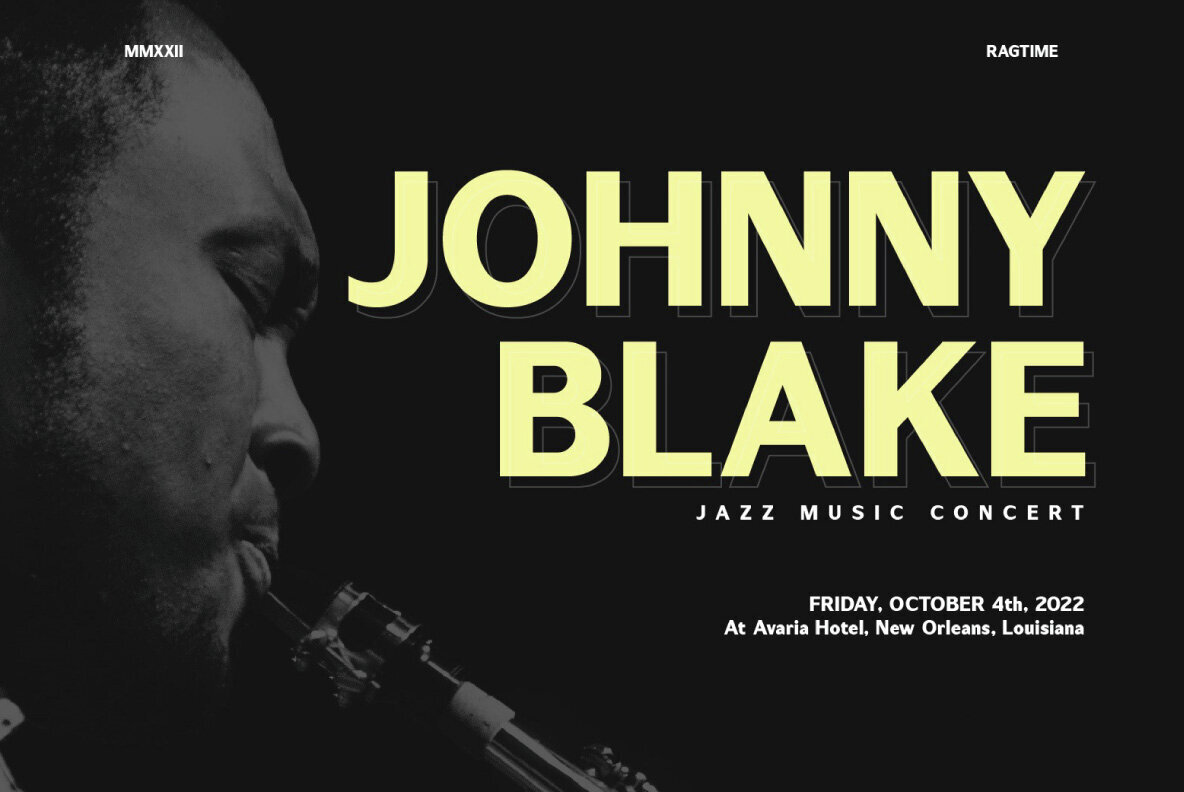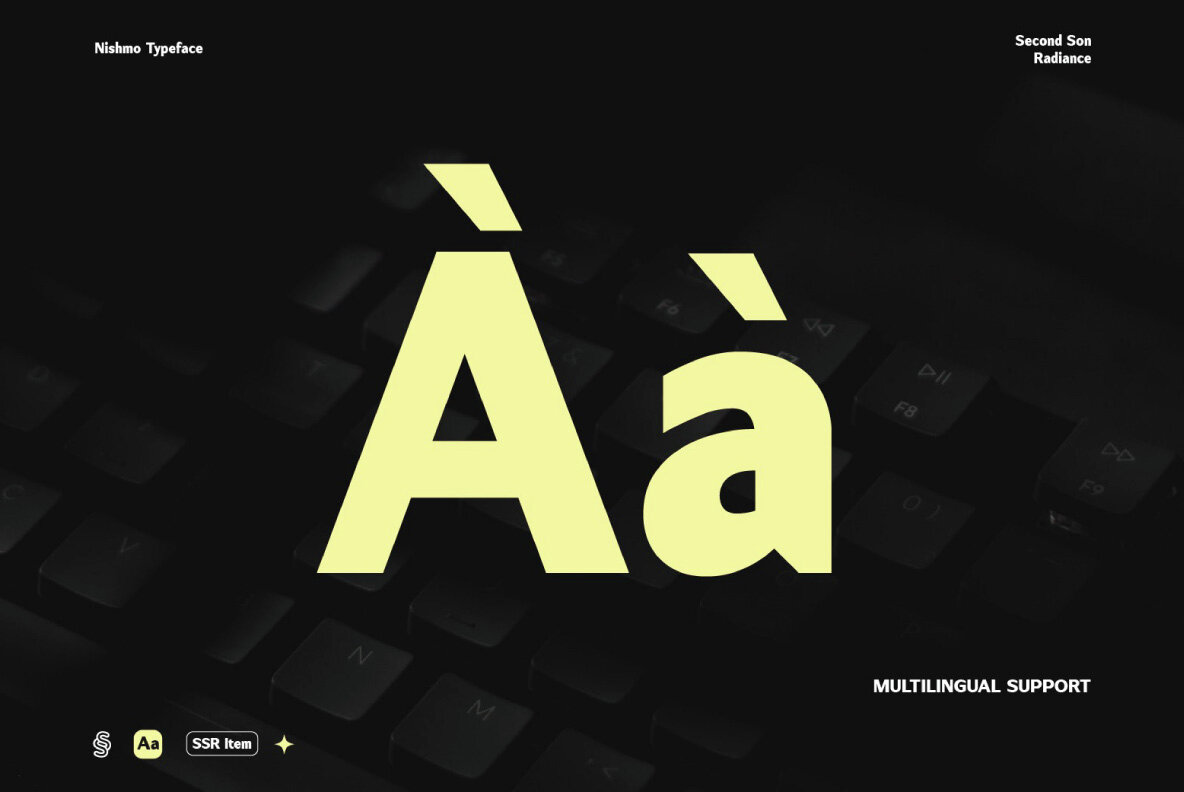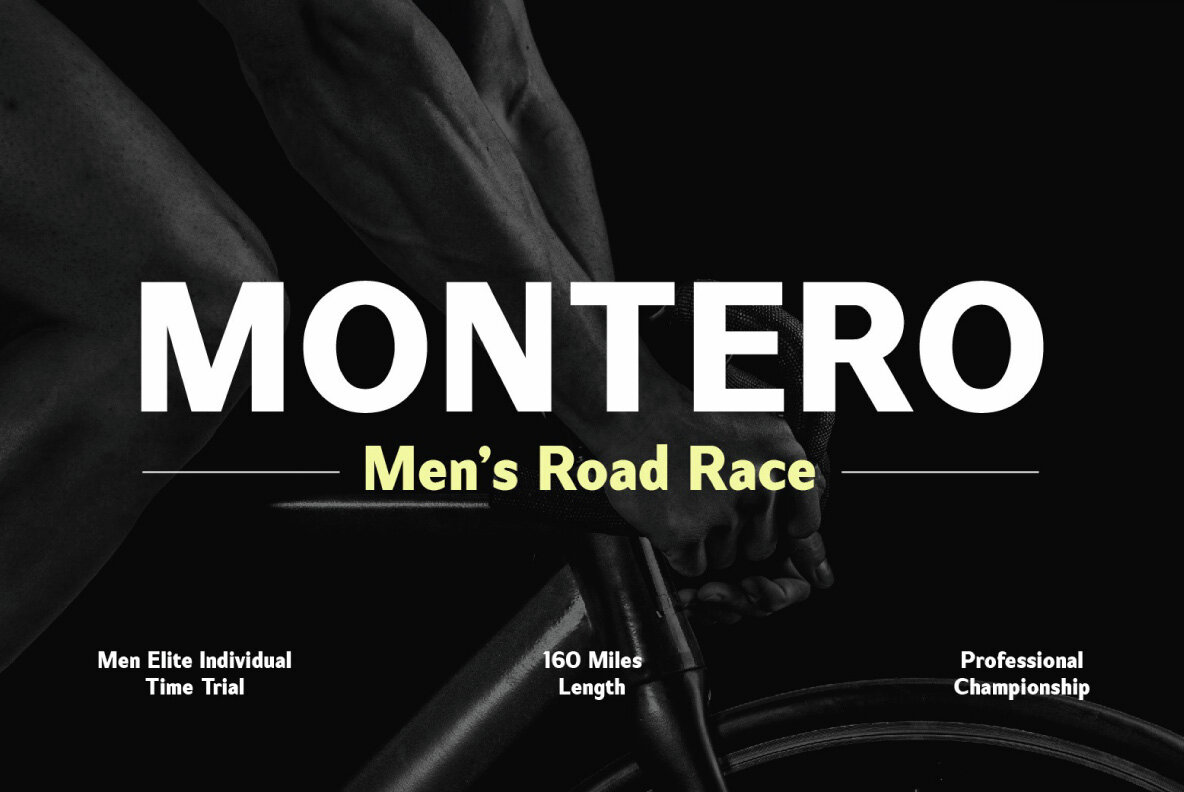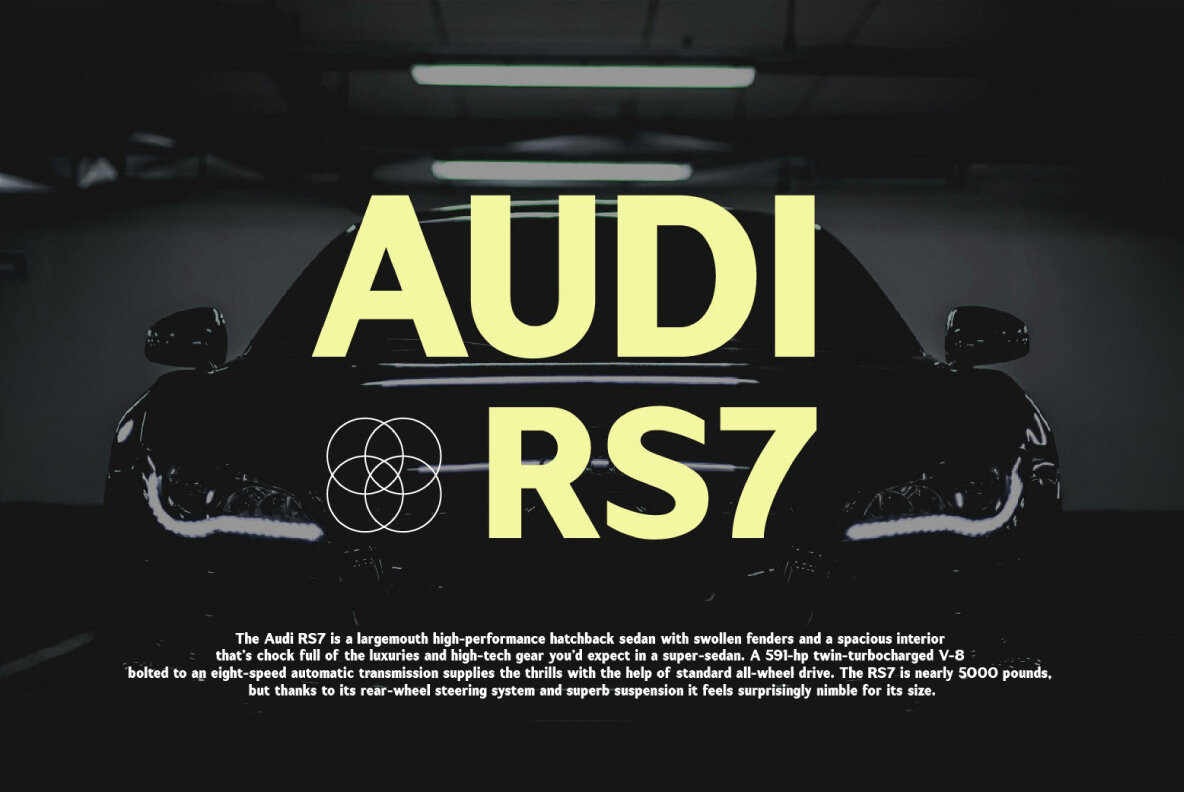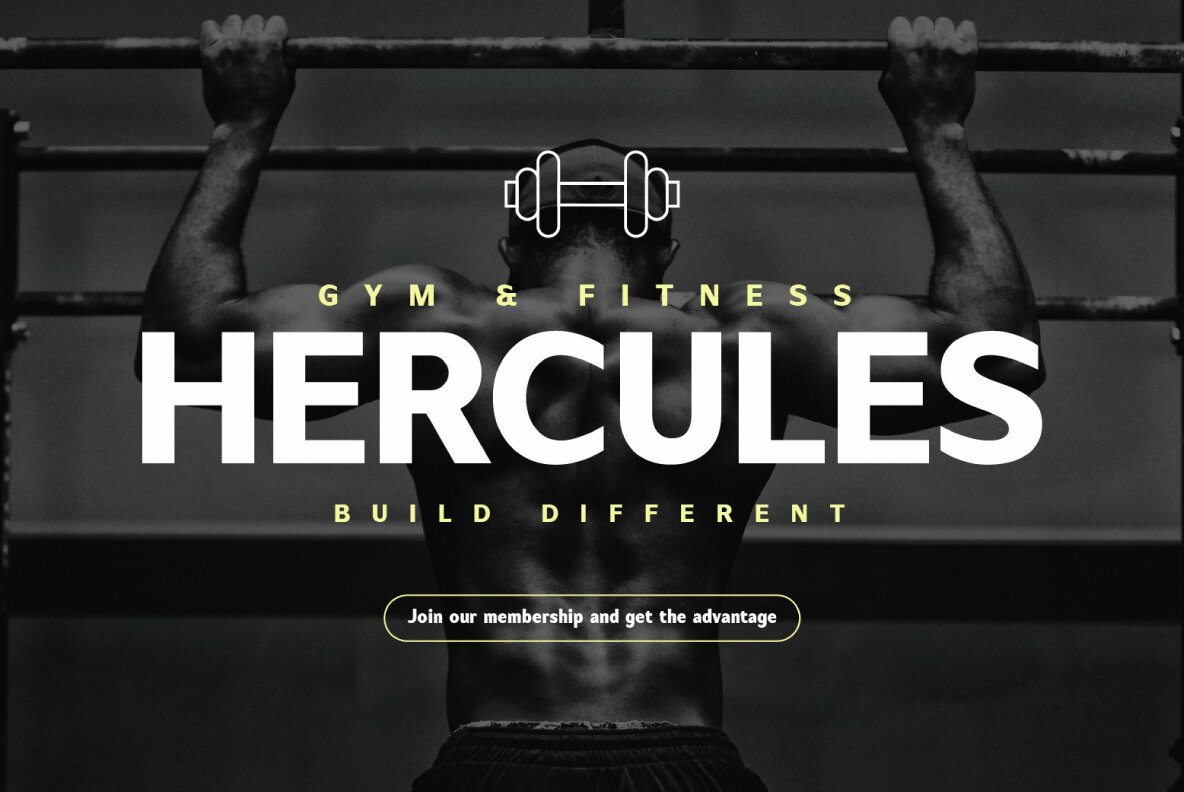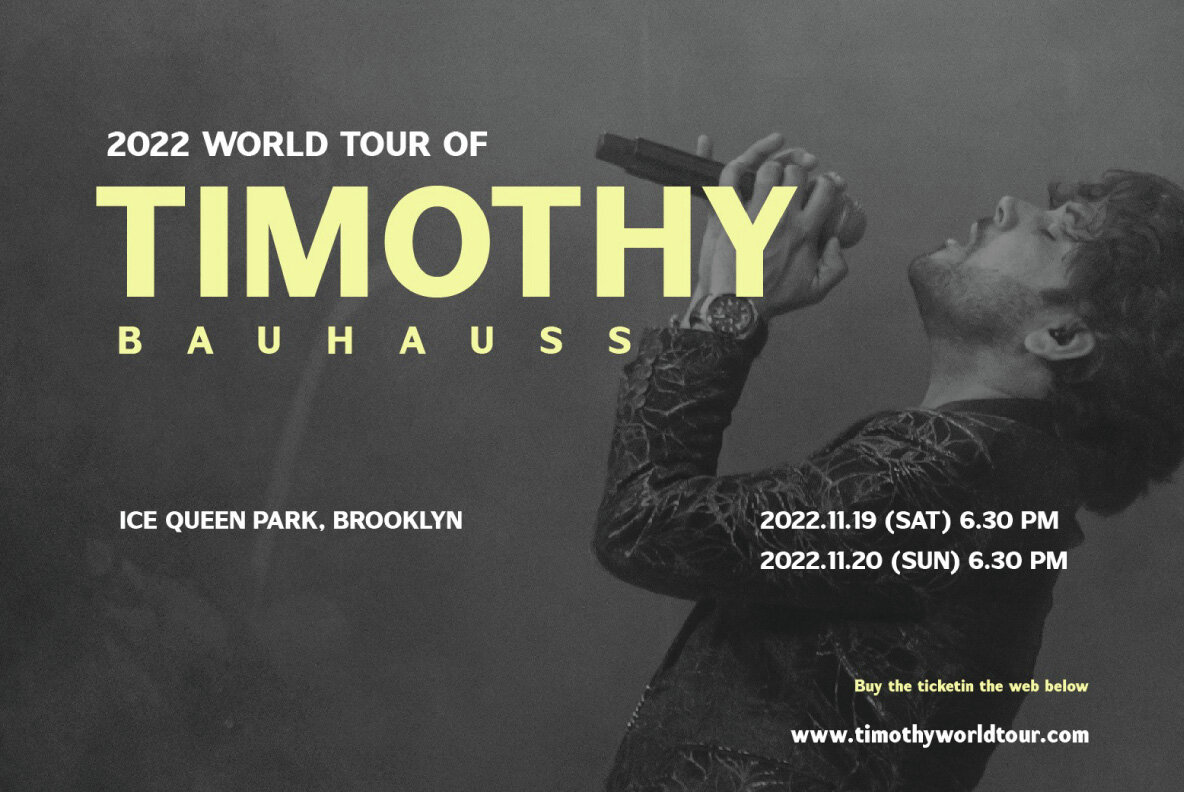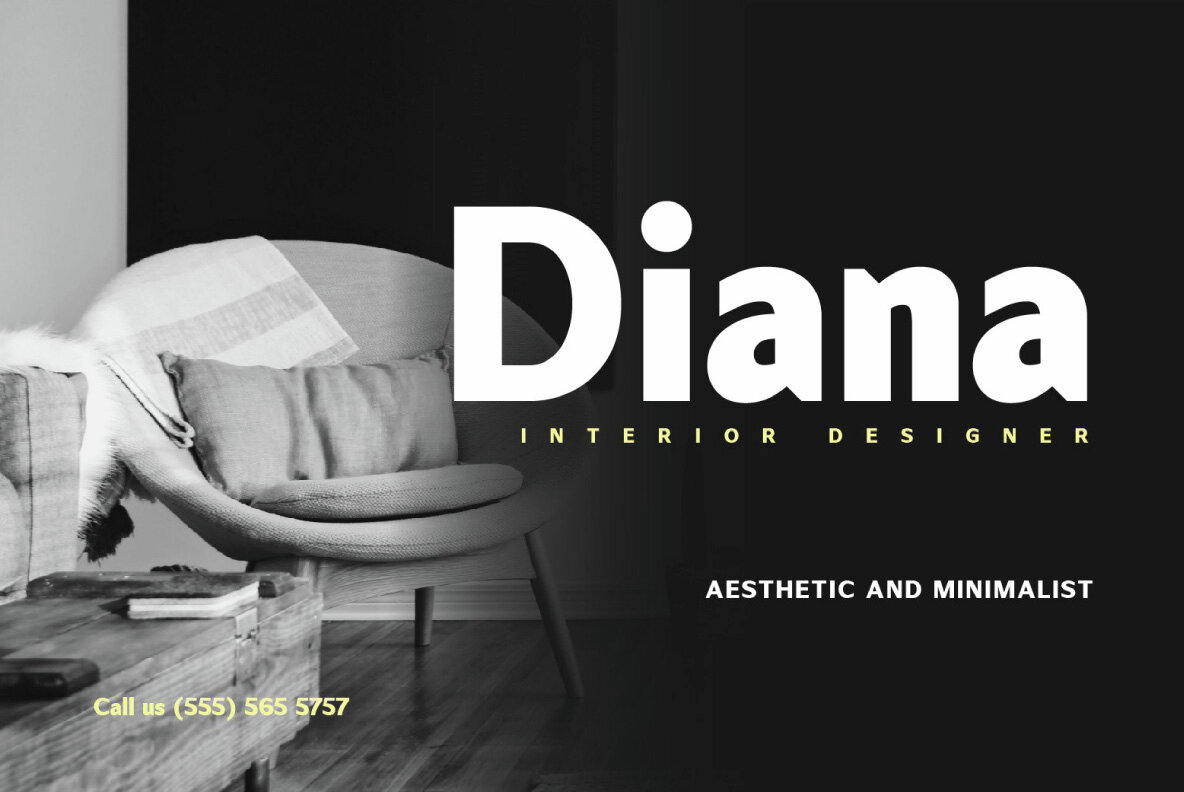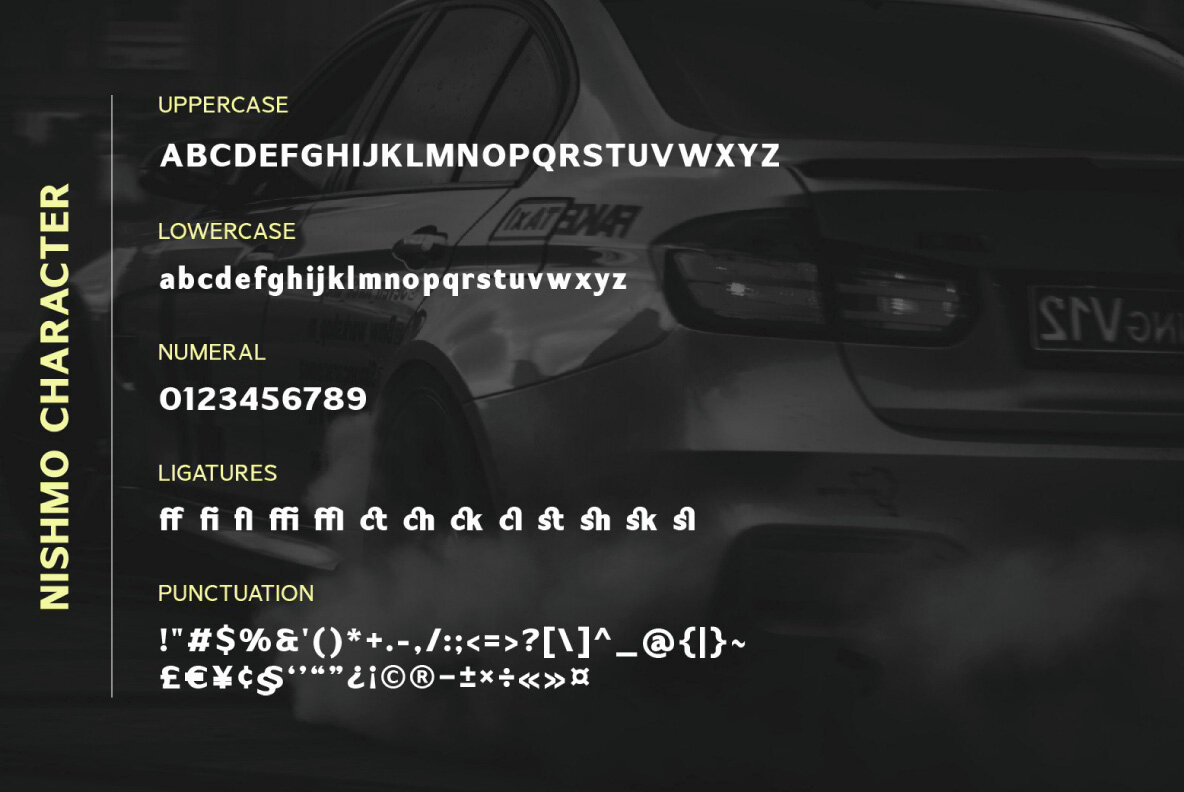
SS Nishmo Font
Nishmo Regular
Nishmo is perfect for your up coming projects. Such as logo branding, editorial design, stationery design, esport design, 80s retro design, game industry, sport racing, techno / gadget brand, digital music poster, apps startup design, modern advertising design, art quote, home decor, book/cover title, special events and any more. Features: